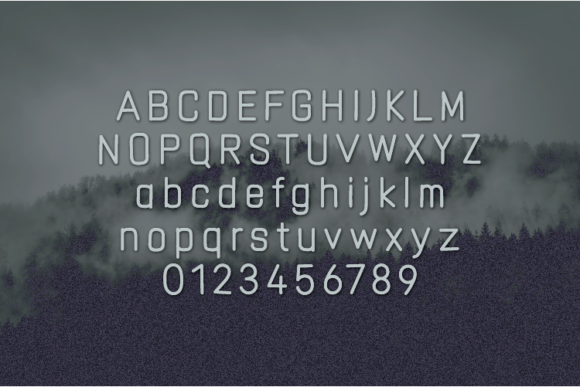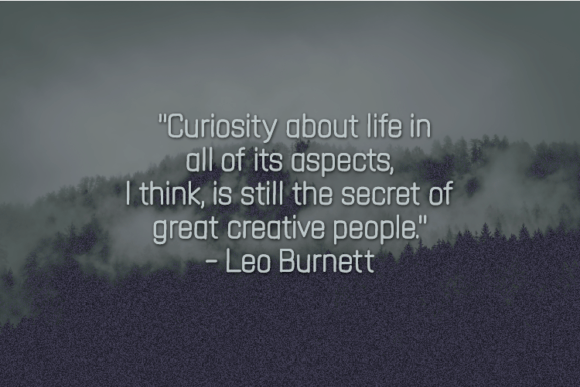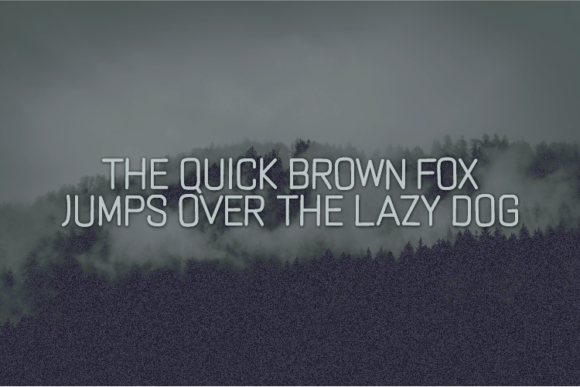
The Perfect Blend of Style and Functionality: Introducing Hybridge Font
Have you ever spent hours pouring over a design, tweaking every detail until it’s just right, only to have it fall flat when it’s presented to the world? We’ve all been there. But what if you could elevate your craft with a simple, yet powerful tool? Enter the Hybridge Font, a game-changing sans serif typeface that brings a touch of natural elegance to your designs.
With its casual, yet refined style, the Hybridge Font is the perfect companion for designers looking to take their work to the next level. Whether you’re a seasoned pro or just starting out, this versatile font is sure to impress. By incorporating the Hybridge Font into your design arsenal, you’ll be able to create visually stunning products that stand out from the competition with ease.
Hybridge Font Key Features
- Font Family: Hybridge Font is a multi-style font family with 24 fonts, offering a wide range of styles and weights.
- Unique Characteristics: Features a unique blend of modern and classic design elements, making it perfect for both contemporary and vintage-inspired projects.
- Language Support: Offers comprehensive language support, including Latin, Cyrillic, Greek, and more, making it suitable for global branding and design initiatives.
Hybridge Font Review
Overall, I think the Hybridge Font is a solid choice for designers looking for a versatile sans-serif font. ✨ One of the things I appreciate about it is its clean and modern aesthetic, making it suitable for a wide range of projects, from corporate materials to digital products.
Here are some of the things I like about the font:
- ✨ Versatility: Hybridge Font works well in both display and body text settings.
- ✨ Wide language support: It includes a vast character set, making it a great option for global projects.
- ✨ Stylistic sets: The font offers various stylistic sets that allow for some customization and visual interest.
- ⚠️ Limited expressiveness: The font’s clean design can sometimes make it feel a bit sterile or unemotional.
- ⚠️ Limited italic options: The italic variations feel a bit off, which might make it less suitable for projects where italic text is prominent.
Overall, I think the Hybridge Font is a great choice for designers who need a reliable, modern font that can handle a variety of tasks. While it may not be the most expressive or unique font out there, its strengths make it a solid addition to any designer’s toolkit.
Hybridge Font is ideal for:
1. Branding and logos
2. Creative marketing materials
3. Editorial and publishing designs
4. Web design and development
Tips for Getting the Most Out of Hybridge Font
To get the most out of Hybridge Font, consider the following tips:
1. Experiment with different font styles and sizes to find the perfect combination.
2. Use Hybridge Font in conjunction with other design elements to create a cohesive
Alternatives to Hybridge Font
Inter Font is a modern sans-serif typeface designed by Rasmus Andersson. It’s a highly legible font suitable for digital products, signage, and body text. Inter Font is more geometric and condensed compared to Hybridge Font, making it ideal for applications where space is limited.
Montserrat Font is a sans-serif typeface inspired by urban typography. It’s a great choice for digital products, logos, and titles. Montserrat Font is more condensed and geometric than Hybridge Font, with a stronger emphasis on horizontal lines, making it suitable for applications where a modern, urban feel is desired.